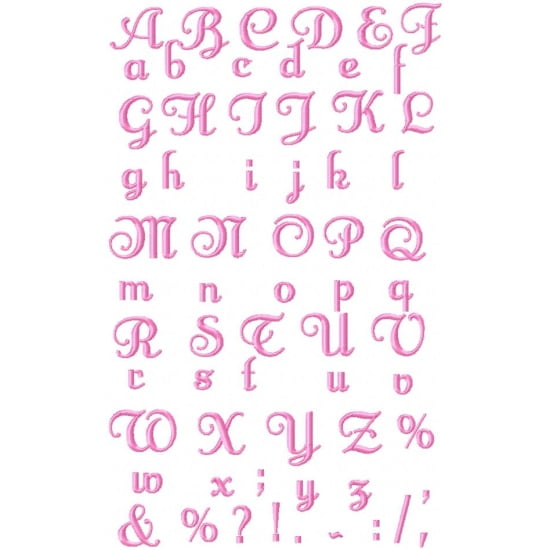
Anna Font
This ¾” font is perfect for personalizing your gift giving. You see it used on our girl/doll purses for the 6×10 hoop. It covers well for use on blankets and blanket labels. All upper and lower case letters, numbers 0-9, and commonly used punctuations are included with your purchase. Font purchased and exclusively licensed by Nick Curtis.